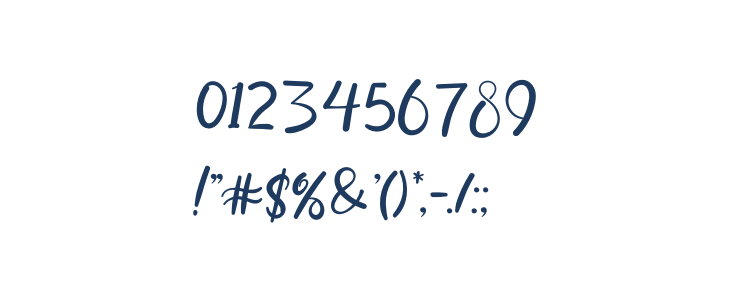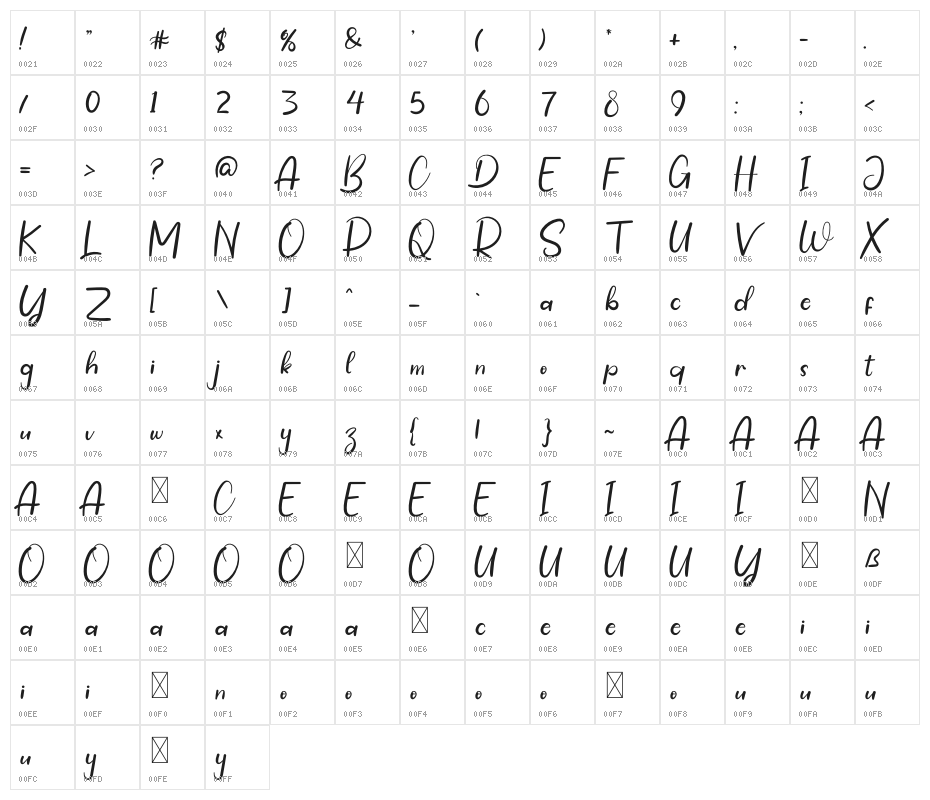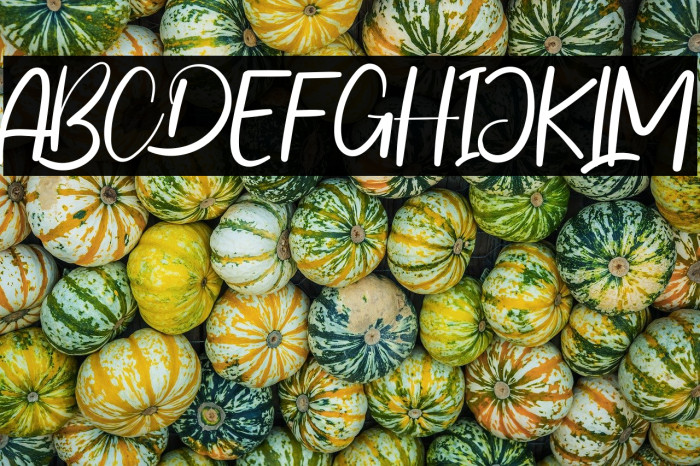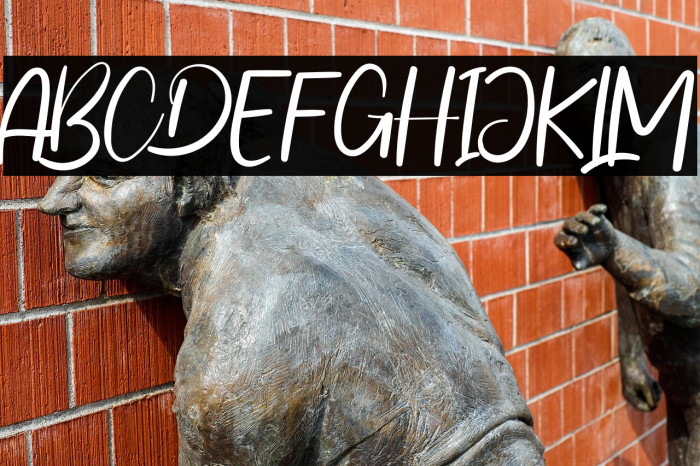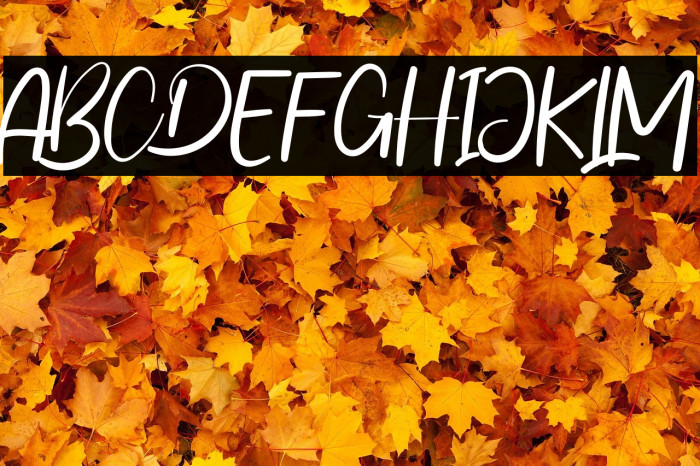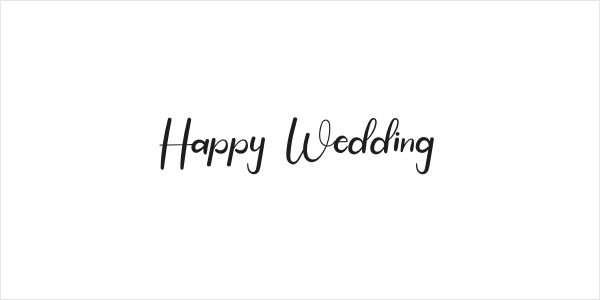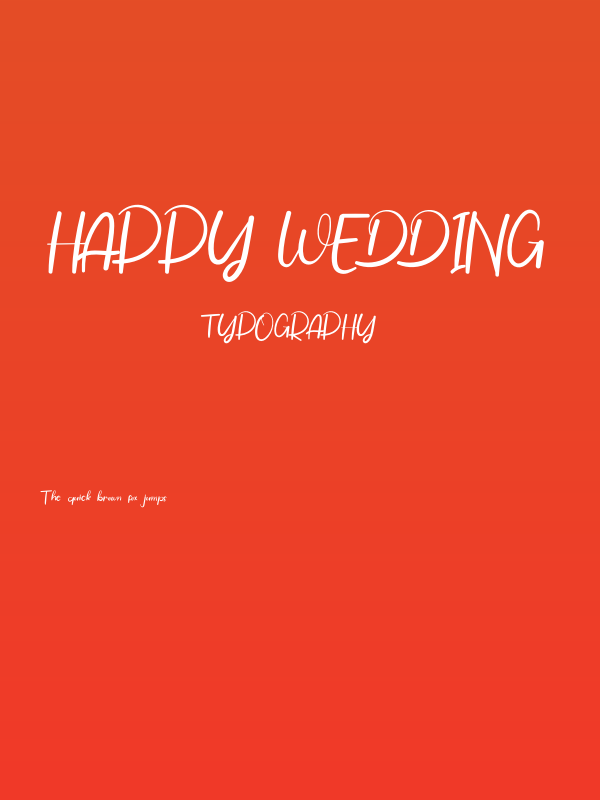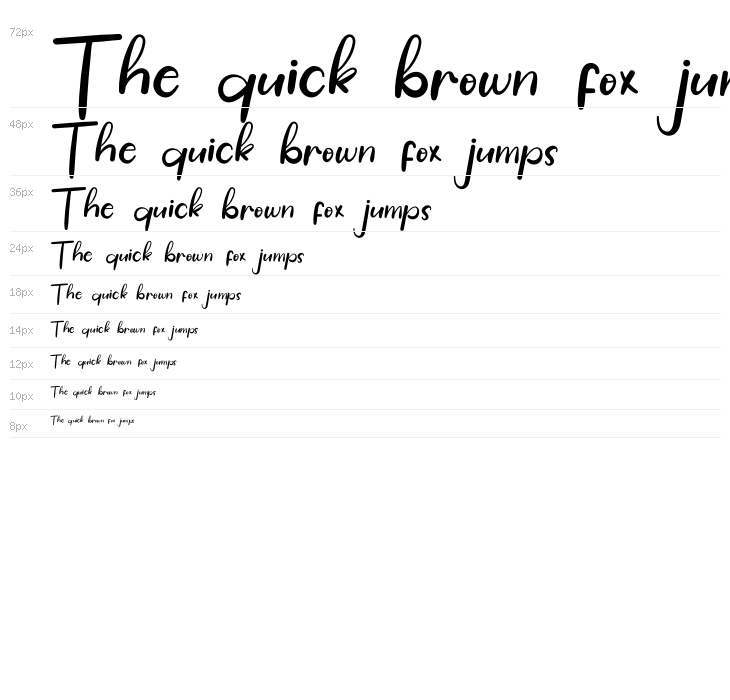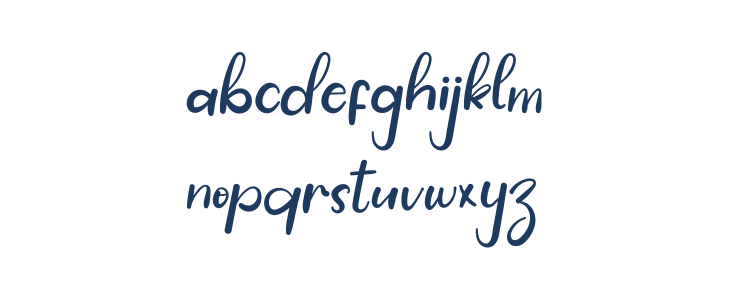
Happy Wedding Font
Happy Wedding Description
This font features a playful and elegant script style, characterized by smooth, flowing lines and a handwritten appearance. The uppercase letters are tall and slightly narrow, with a whimsical flair that adds a touch of sophistication. Lowercase letters maintain a consistent flow, enhancing readability while retaining a casual charm. Numbers are well-balanced, complementing the overall aesthetic. The special characters are creatively designed, fitting seamlessly with the rest of the typeface. This font exudes a sense of joy and celebration, making it ideal for festive occasions.
| Use Case | Headlines, Invitations, Greeting Cards |
| Proposed Projects | Perfect for wedding invitations, greeting cards, event posters, and branding materials that require a touch of elegance and joy. |